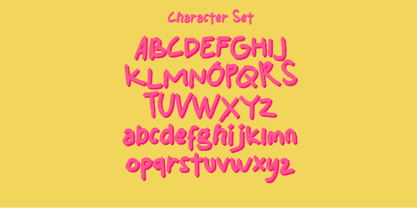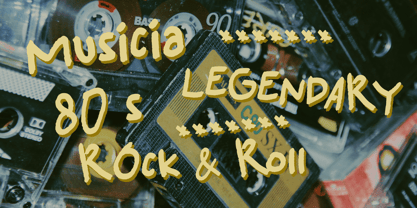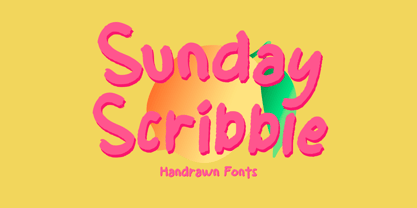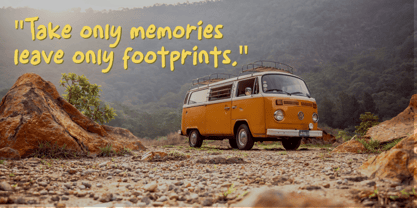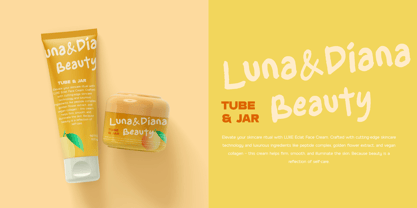
Sunday Scribble
by Ameenatype
The Sunday Scribble Font Family was designed by Syaiful Rizal Muhaimin and published by Ameenatype. Sunday Scribble contains 1 styles. More about this family
Sunday Scribble is a playful, handdrawn display font that captures the carefree joy of spontaneous creativity. With bold strokes, rough edges, and a fun, slightly imperfect structure, this font is perfect for projects that need a personal, youthful, and expressive touch.
Designed to resemble real marker scribbles, Sunday Scribble adds a warm and handmade charm to posters, packaging, children’s content, greeting cards, and more. Whether you're working on playful branding or cheerful social media designs, this font delivers instant personality.